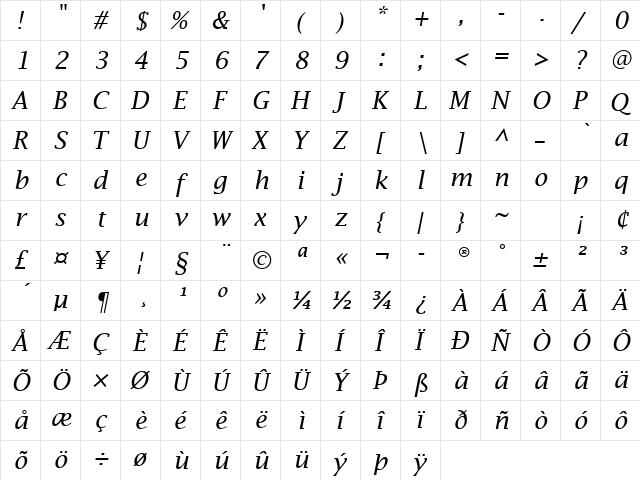
Lucida Fax Italic
Design Context for Lucida Fax Typeface
Lucida Fax is a composed and adaptable typeface that performs quietly and consistently across a wide range of design contexts. The slanted form adds forward momentum and visual energy.
Pro Tip: Try Lucida Fax for annotation and caption copy alongside an upright companion — the contrast in angle creates a dynamic but ordered typographic system.